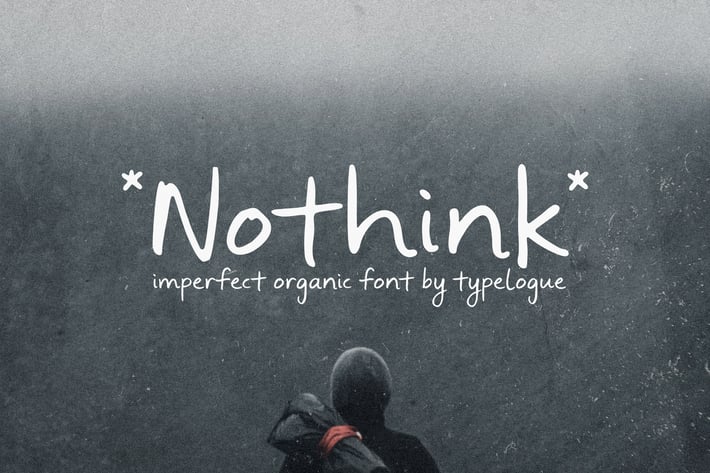
Nothink - Organic Handwritten Font
The Nothink font has a unique, hand-drawn style that feels organic and authentic. The imperfect design, giving it a charming, human touch that adds warmth and character to any design. The letters are playful yet readable, perfect for projects that need a casual, friendly, and personal vibe. Ideal for branding, quotes, posters, and any creative work where you want to convey a sense of honesty and approachability. This font effortlessly blends simplicity with style, making it a versatile choice for designers looking to add an original, handmade feel to their work.